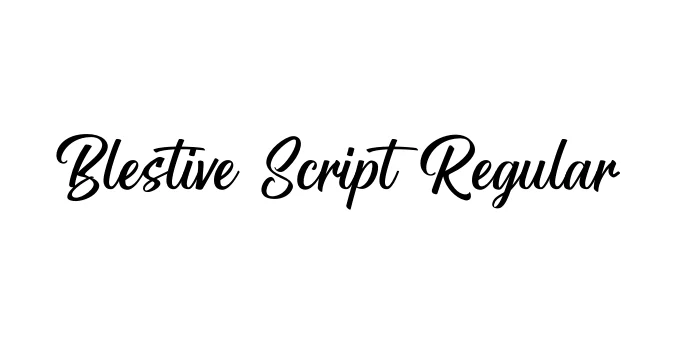
Blestive Script Regular
Designed by Hendra Pratama
Blestive Script Regular is a sophisticated and fluid modern calligraphy font designed to bring a touch of elegance to any creative project. Developed by the talented Hendra Pratama, this typeface features smooth, sweeping strokes and a rhythmic flow that mimics authentic hand-lettering. Its delicate balance of thick and thin lines makes it a standout choice for high-end branding, artistic compositions, and editorial layouts where a personalized touch is required.
This typeface is particularly noted for its versatility in formal settings, offering a refined aesthetic that bridges the gap between traditional penmanship and contemporary digital design. Whether used for wedding stationery, luxury packaging, or professional logos, Blestive Script Regular provides a timeless charm. Its character set is meticulously crafted to ensure legibility while maintaining the expressive flourishes characteristic of premium script typography.
Blestive Script Regular Best Uses
Adds a romantic and formal touch to invitations and RSVP cards.
Ideal for luxury logos and signature-style corporate branding.
Perfect for creating stylish quotes and eye-catching Instagram overlays.
Enhances the premium feel of cosmetic, boutique, and artisanal goods.